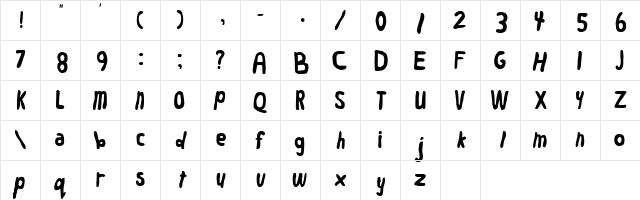
Worm Regular
Design Context for Worm
Worm is a composed and adaptable typeface that performs quietly and consistently across a wide range of design contexts.